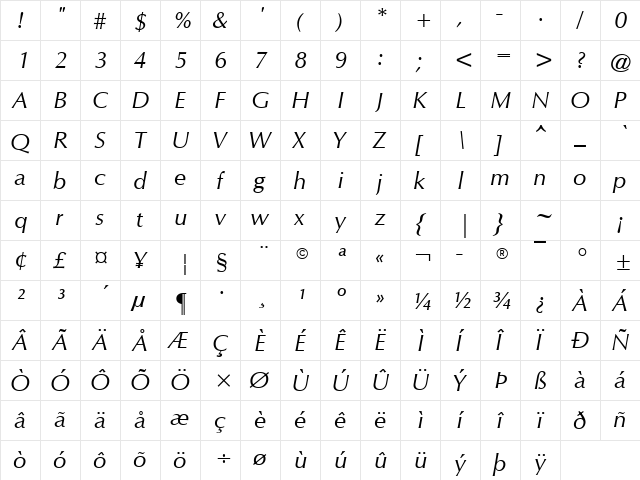
CG Omega Italic
Design Context for CG Omega Typeface
CG Omega takes a measured approach to typography — its balanced proportions and neutral character make it a reliable workhorse for both digital and print work. Its italic angle brings a sense of urgency and motion to the letterforms.
Pro Tip: Use CG Omega for emphasis, pull quotes, and subheadings where its slanted energy can add rhythm to the layout.